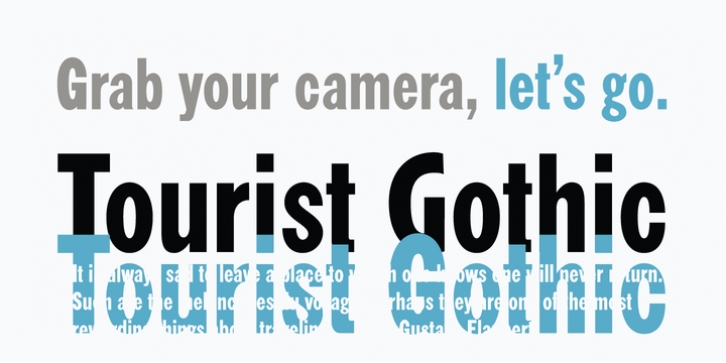
Tourist Gothic is a Lanston Monotype adaptation of Modern Condensed Gothic (a design from the late 1800s.) Rounded alternate caps were designed by Sol Hess in 1928. The alternate version is offered as LTC Tourist Gothic Alt. Tourist Gothic Pro combines both variations and includes a full Central European character set and several other OpenType features.